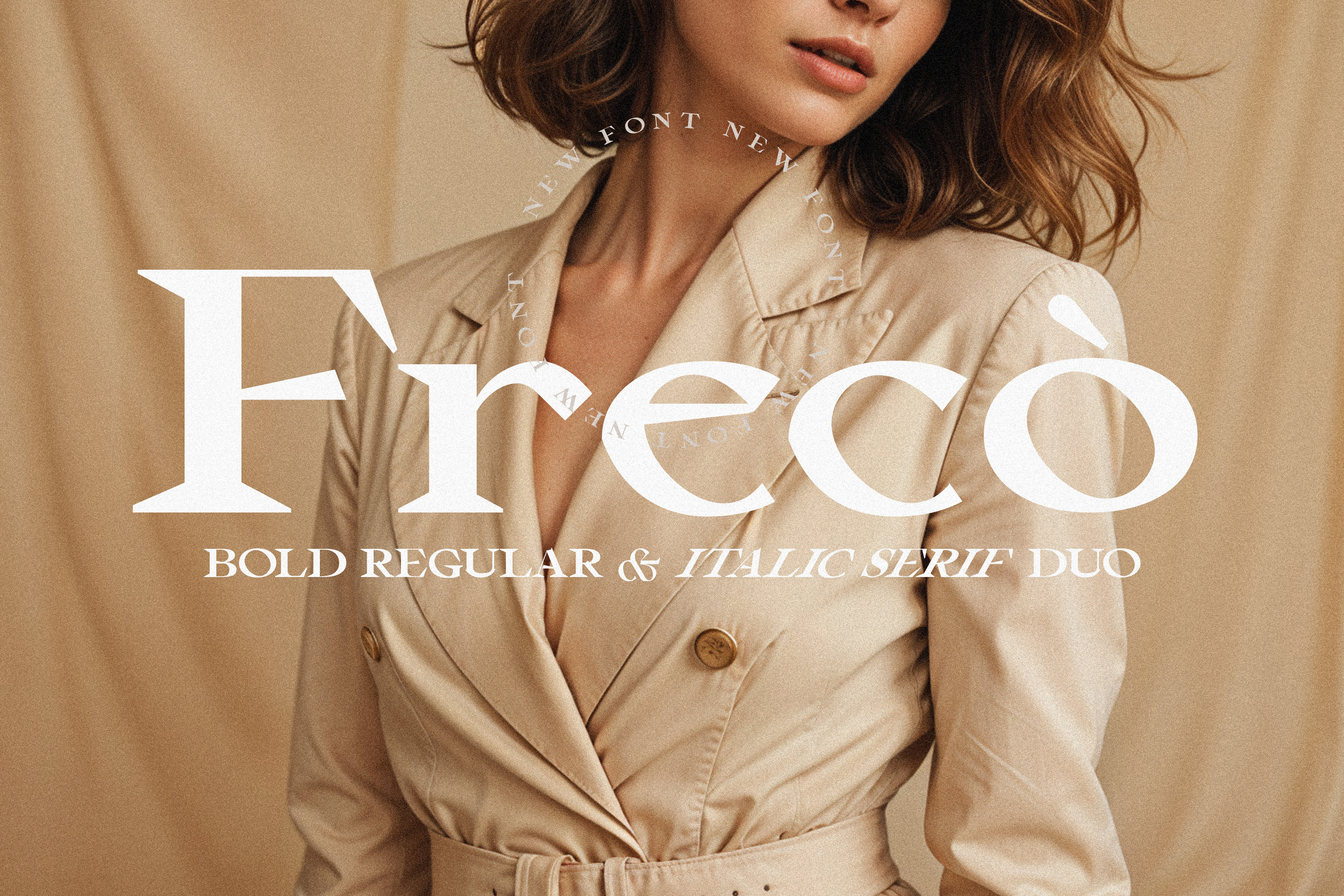
Freco - Modern Serif Font
Say hello to Freco - a modern serif font duo (Regular + Italic) with sharp and expressive corners.
It's a perfect font for titles, web design, and branding projects - use it on it own or mix it up with a clean sans-serif for extra effect.